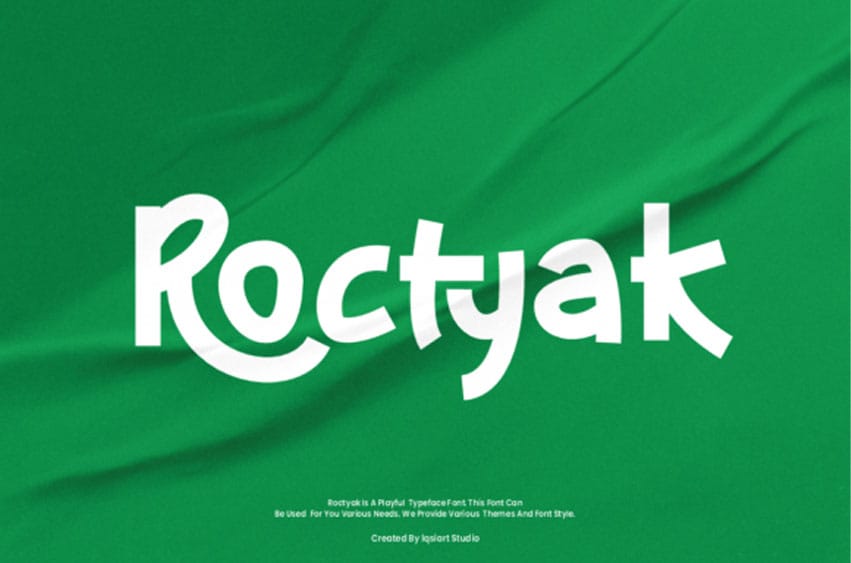
Roctyak Font typeface is a bold and playful display font designed to bring energy and character to creative projects. Its rounded curves and dynamic strokes give it a friendly yet modern aesthetic, making it ideal for designs that need to feel approachable and fun. The uppercase letters are slightly geometric with quirky angles, while the lowercase characters maintain a smooth and flowing rhythm. This contrast provides strong readability without losing personality.
The font includes a complete set of uppercase, lowercase, numerals, and punctuation, ensuring versatility for both digital and print use. Its style is especially suited for branding, children’s books, posters, packaging, social media graphics, and playful advertising campaigns. With its bold presence, Roctyak excels as a headline or logo font, where impact and memorability are essential. Overall, this font strikes a balance between whimsy and clarity, making it an excellent choice for projects that seek to stand out with a fresh, youthful aesthetic.